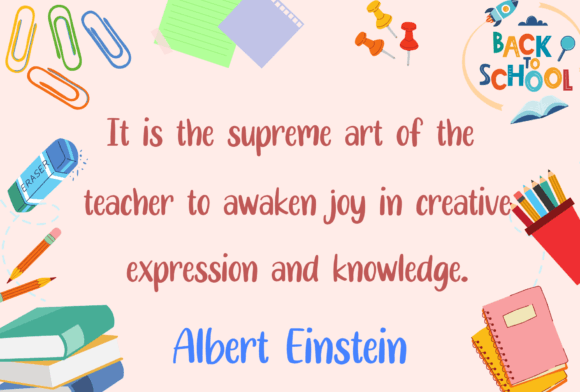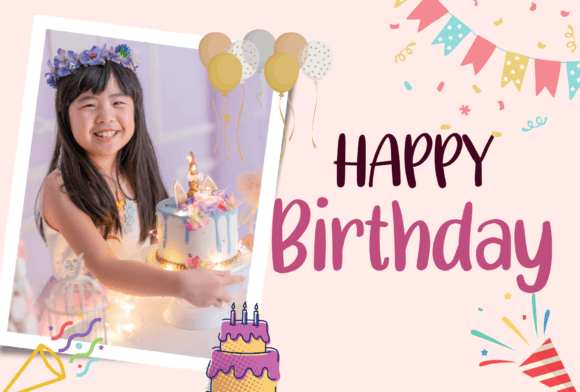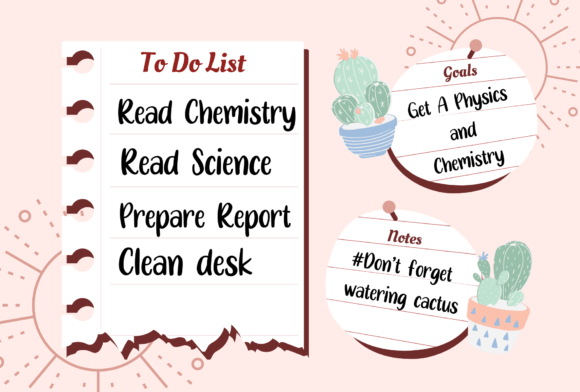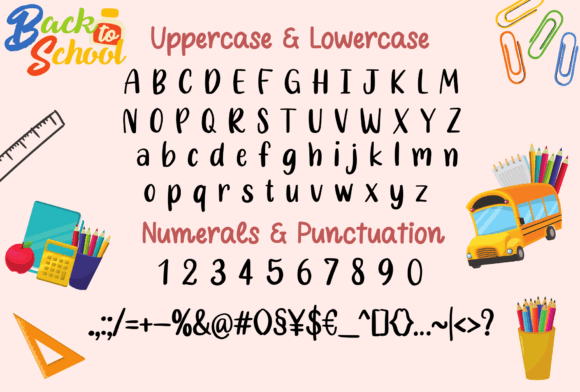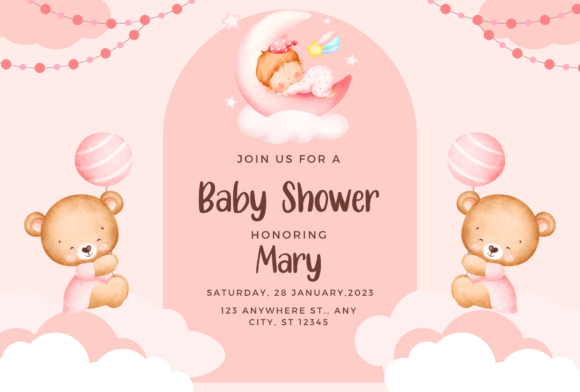
The Perfect Blend of Fun and Learning: Back to School Font
Remember the excitement of rummaging through your school supplies, picking out the perfect pencils, and decorating your notebook with colorful stickers? As a designer, you get to relive that magic every time you create something new. And what’s more thrilling than discovering a font that captures the essence of that back-to-school feeling?
Introducing the Back to School Font, a delightful, handwritten font that’s as bright and cheerful as a sunny morning. This versatile font is designed to add a touch of whimsy to any project, from educational materials and presentations to birthday cards and baby products. Whether you’re a teacher looking to create engaging lesson plans or a designer seeking a unique touch, the Back to School Font is sure to inspire your creativity.
For designers, the Back to School Font offers a valuable asset – the ability to add a personal, human touch to any project. Its playful, handwritten style makes it perfect for creating a sense of connection and approachability, making it an ideal choice for branding and marketing materials.
Key Features of “Back to School Font”
- Font Family: A custom-designed font family specifically created for educational purposes, featuring a playful and modern aesthetic.
- Unique Characteristics: The font features a unique blend of rounded and geometric shapes, with subtle texture and shading effects, giving it a distinctive and eye-catching appearance.
Designer Review: Back to School Font
Overall, I’d say the Back to School Font is a decent addition to any designer’s toolkit, but it’s not without its flaws. Let’s start with what works well:
- ✨ Playful and youthful vibe: This font is perfect for creating a fun and energetic atmosphere, making it great for educational materials, kid-friendly websites, or summer-themed projects.
- ✨ Legibility: Despite its playful appearance, the font is still easy to read, even at smaller sizes.
- ✨ Versatility: The font comes in a range of weights and styles, making it easy to customize to suit your needs.
- ⚠️ Limited use cases: While the font is great for kid-friendly projects, it may not be the best choice for more formal or professional materials.
- ⚠️ Limited language support: The font may not be as effective for non-English languages, as it’s designed specifically with the Latin alphabet in mind.
Overall, I’d give the Back to School Font 3.5 out of 5 stars. It’s a fun and versatile font that’s perfect for certain projects, but it may not be the best choice for more formal or professional work.
The Back to School font is perfect for:
Summer camp flyers
Back to school posters
Education-themed social media graphics
Teacher or student profiles
Use the Back to School font in combination with other playful fonts to create a unique and engaging design.
Alternatives to “Back to School Font” for Designers
Comic Sans MS is a playful, informal font that can be used for casual or lighthearted designs. It’s similar to Back to School Font in its friendly and approachable nature, but has a more rounded and childlike appearance.